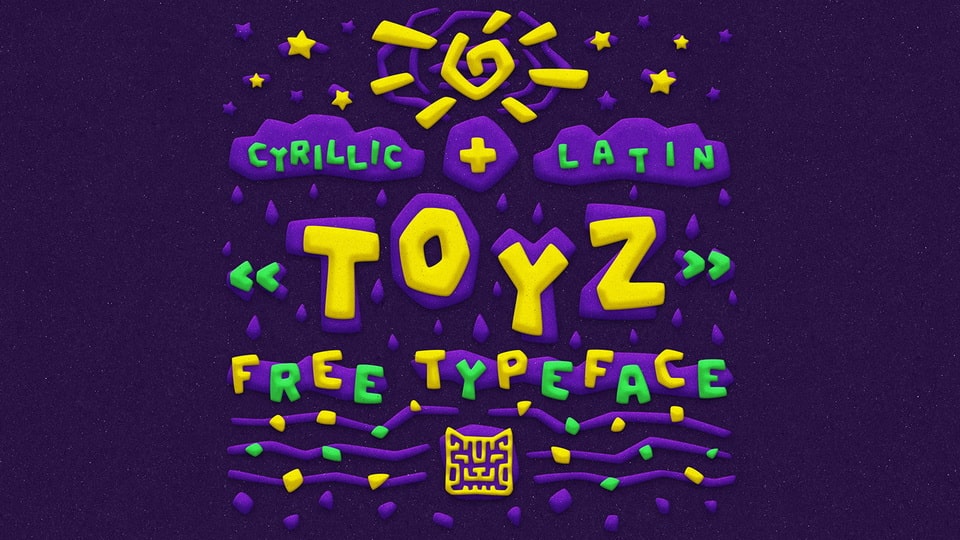
Download TOYZ font, a funny and playful display typeface in cartoon style. TOYZ font is perfect for children’s books, game interfaces, or just for personal design experiments.